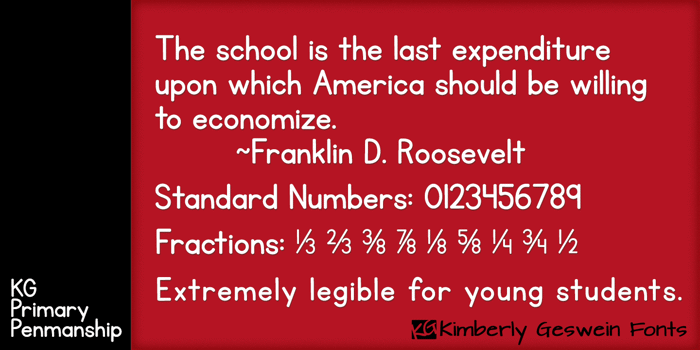
KG Primary Penmanship Font
KG Primary Lined NOSPACE
KG Primary Penmanship Style
KG Primary Penmanship
2 Regular Style
KG Primary Penmanship 2
Alt Regular Style
KG Primary Penmanship Alt
Lined Regular Style
KG Primary Penmanship Lined
I come from a family of educators- my mom, husband, stepmom, brother-in-law, and sister are all currently teaching and I have taught in the past. This font was created after speaking to several elementary school teachers who were struggling to find just the right font to use on worksheets and projects in their classroom. They liked many features of other fonts, but needed small things altered in order to make a "perfect fit" for their class. Hand-drawn by me, this font hopefully addresses several of those issues. As penmanship styles vary across the globe, I am sure this font will not work in every classroom. But hopefully this style will work for many teachers to give their early readers a highly legible, neat, accurate font. It is best used with kerning turned on to allow for accurate letter spacing. Free for personal use. Please pay for commercial use.
This is a nice clean font, but it is the same as other print-like fonts in that the characters are slowly drawn and do not relate well to natural movements of the hand. Please note another solution: www.bfhhandwriting.com
^ I appreciate your input. However, most districts in the US prefer that students print in this style. Sorry! If the fluent handwriting ever takes over the world, I'll be sure to hop on that train! 😄
I think this is PERFECT for students. VERY legible. Great work as always
Just beautiful!
@WolfLambert I love the single story a too!
This is perfect for school-age children, those learning to write in English as a second language, in addition to those simply wanting to improve their printing. Will be printing these for my niece to practice with. Thank you, once again!
I'm loving your KG Primary Penmanship Alt as it correlates with the letter shapes that we're teaching our 3 year old.
However, it seems that your lined version of this font is not quite the same; notably, the lower case letter 'q'.
Do you have a version that has identical lettering to KG Primary Penmanship Alt but with the lines also?